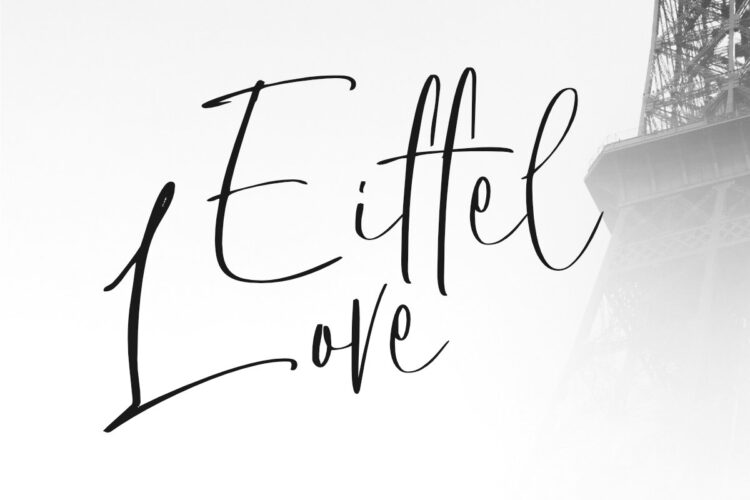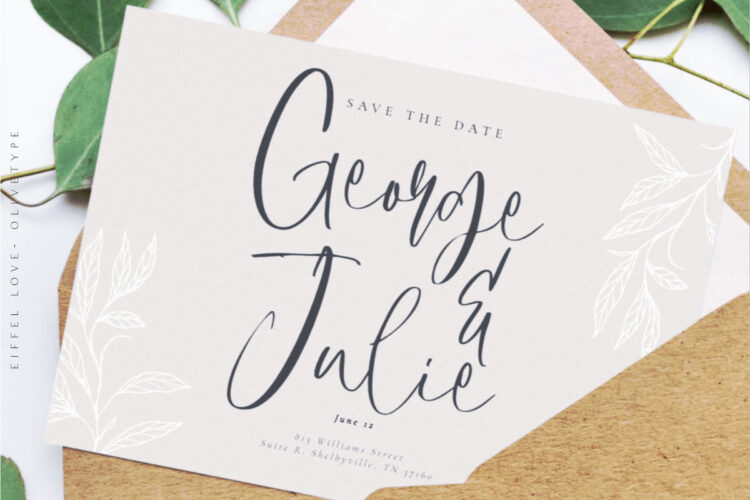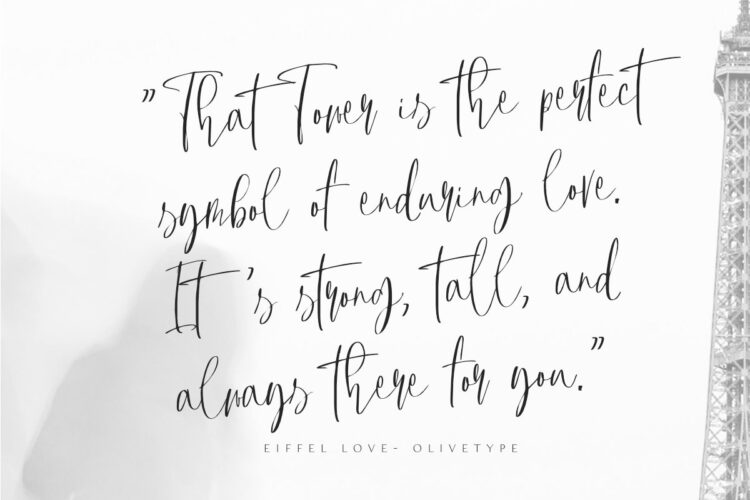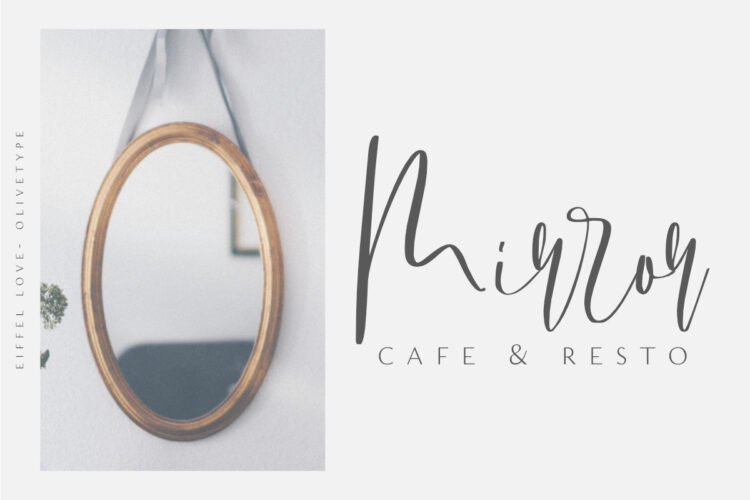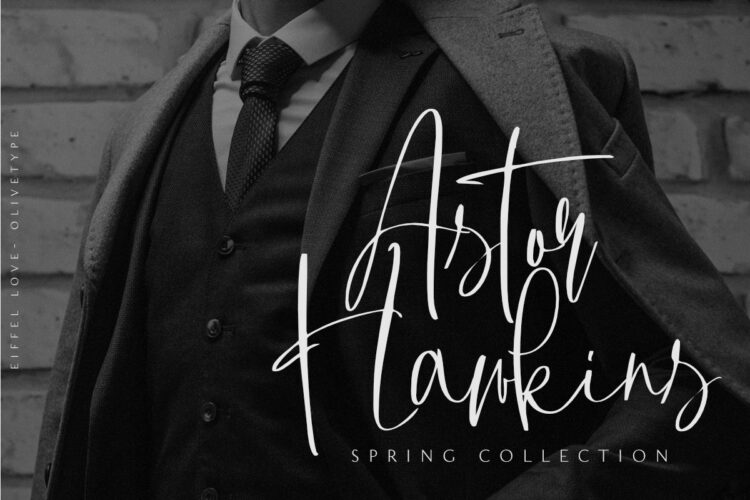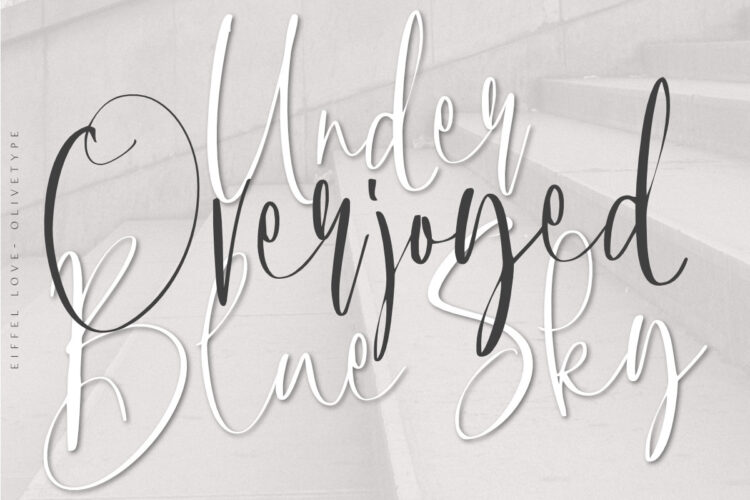
Eiffel Love is a handwritten typeface that’s perfect for your romantic designs. With its carefree and natural feel, Eiffel Love is the perfect font for invitations, cards, and any other project that needs some unique touch.
This font is supporting more than 66 languages, which include: Afrikaans Albanian Catalan Danish Dutch English Estonian Finnish French German Italian Norwegian Portuguese Spanish Swedish Zulu, and more.